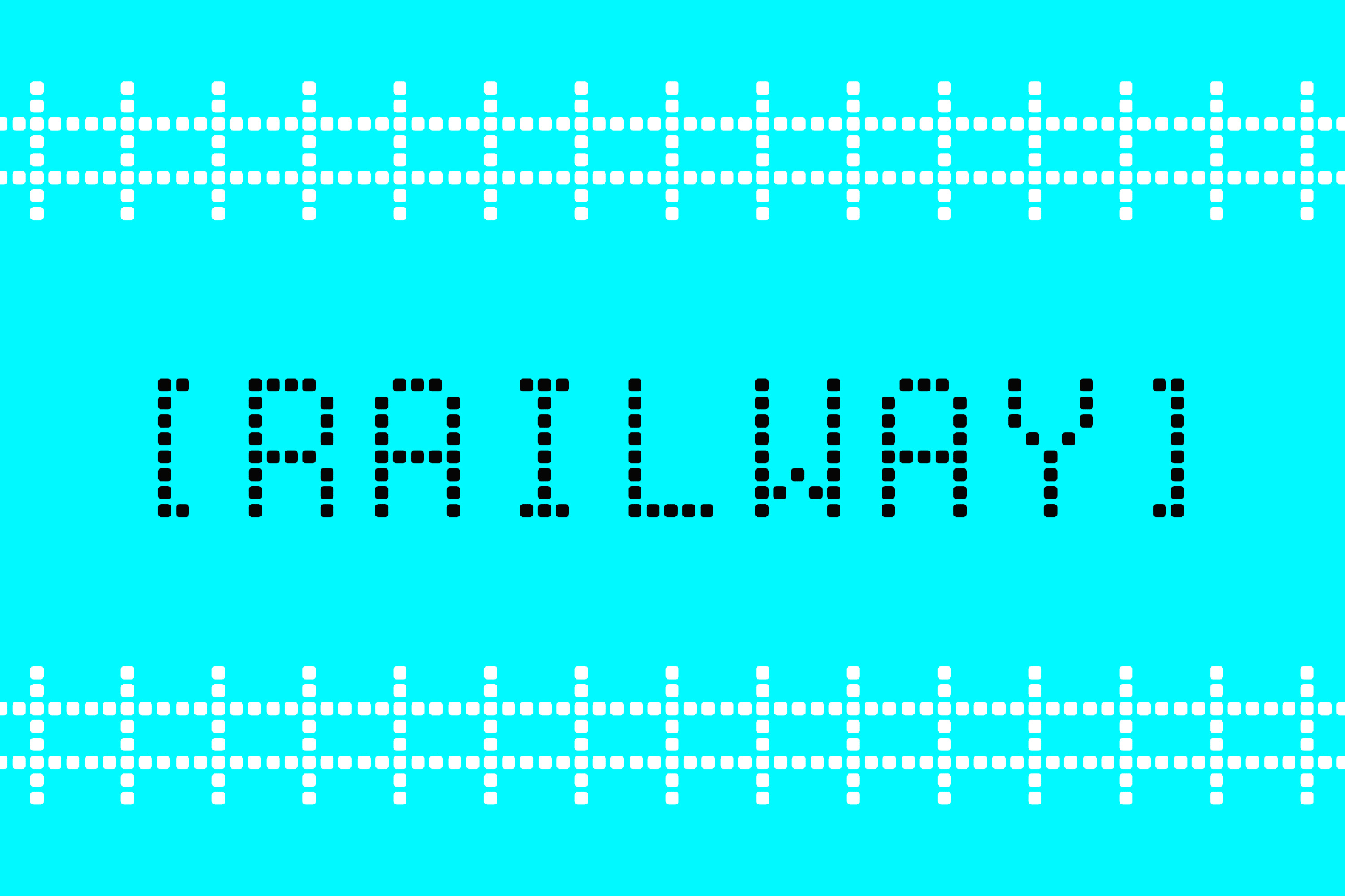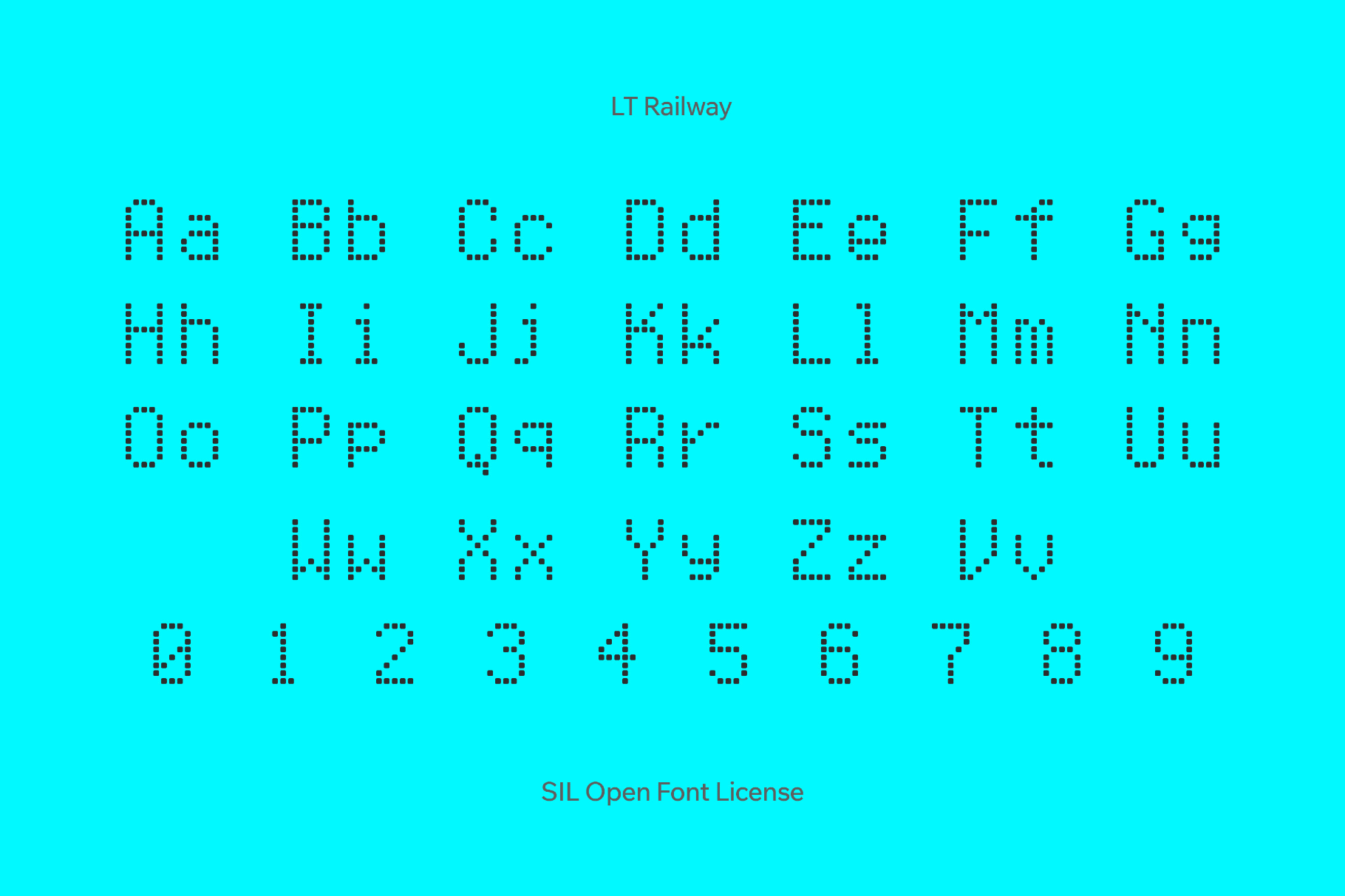
LT Railway Display
LT Railway Regular
LT Railway is modeled on railway information displays, with letters built from strict grid modules. Square, even, and utilitarian strokes help long city names, times, and codes sit neatly in a line and make the font convenient for transit-inspired branding, departure board mockups, wayfinding posters, system maps, line diagrams, travel apps, widgets, dashboard, status panels, retro-tech interfaces, motion graphics, etc.